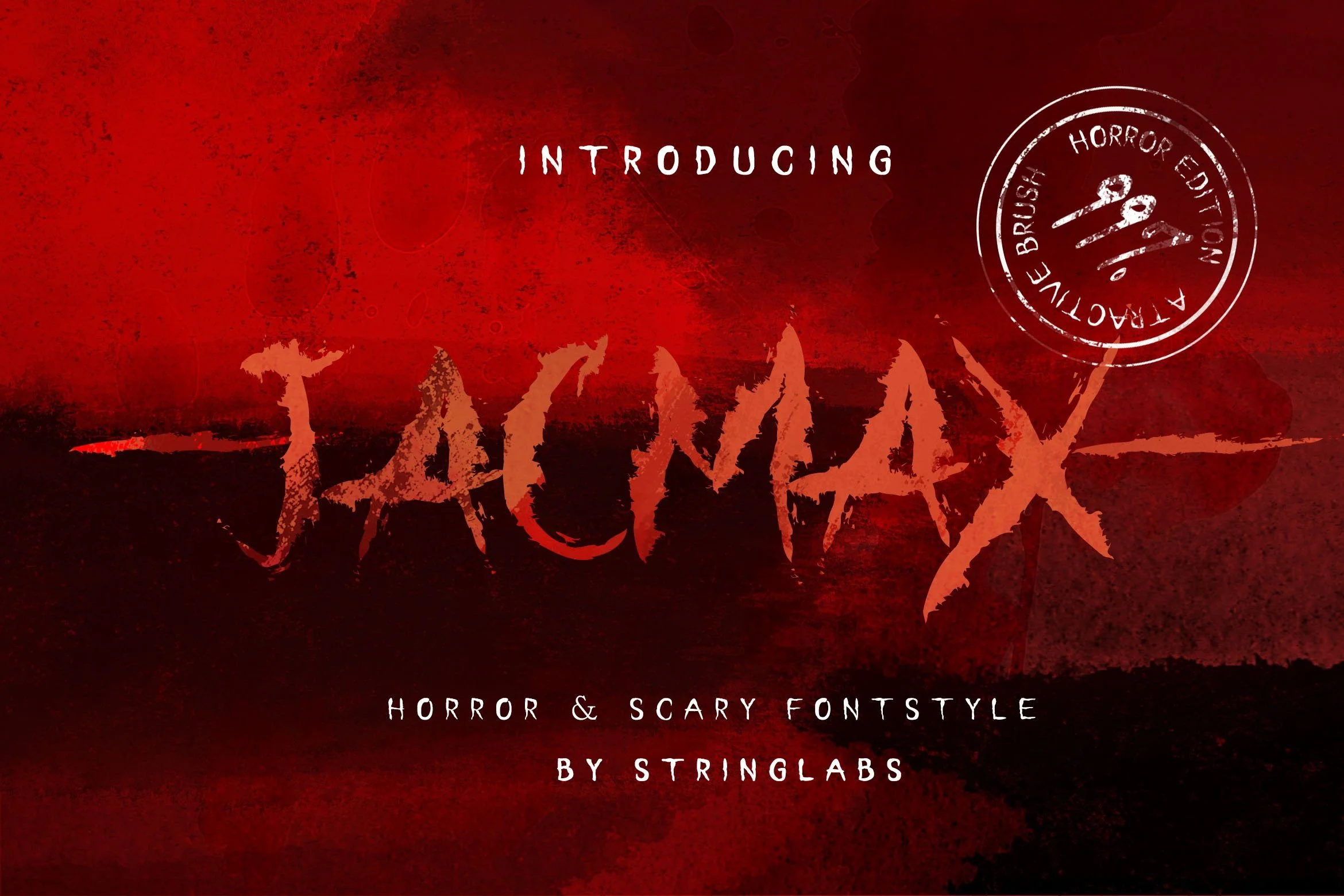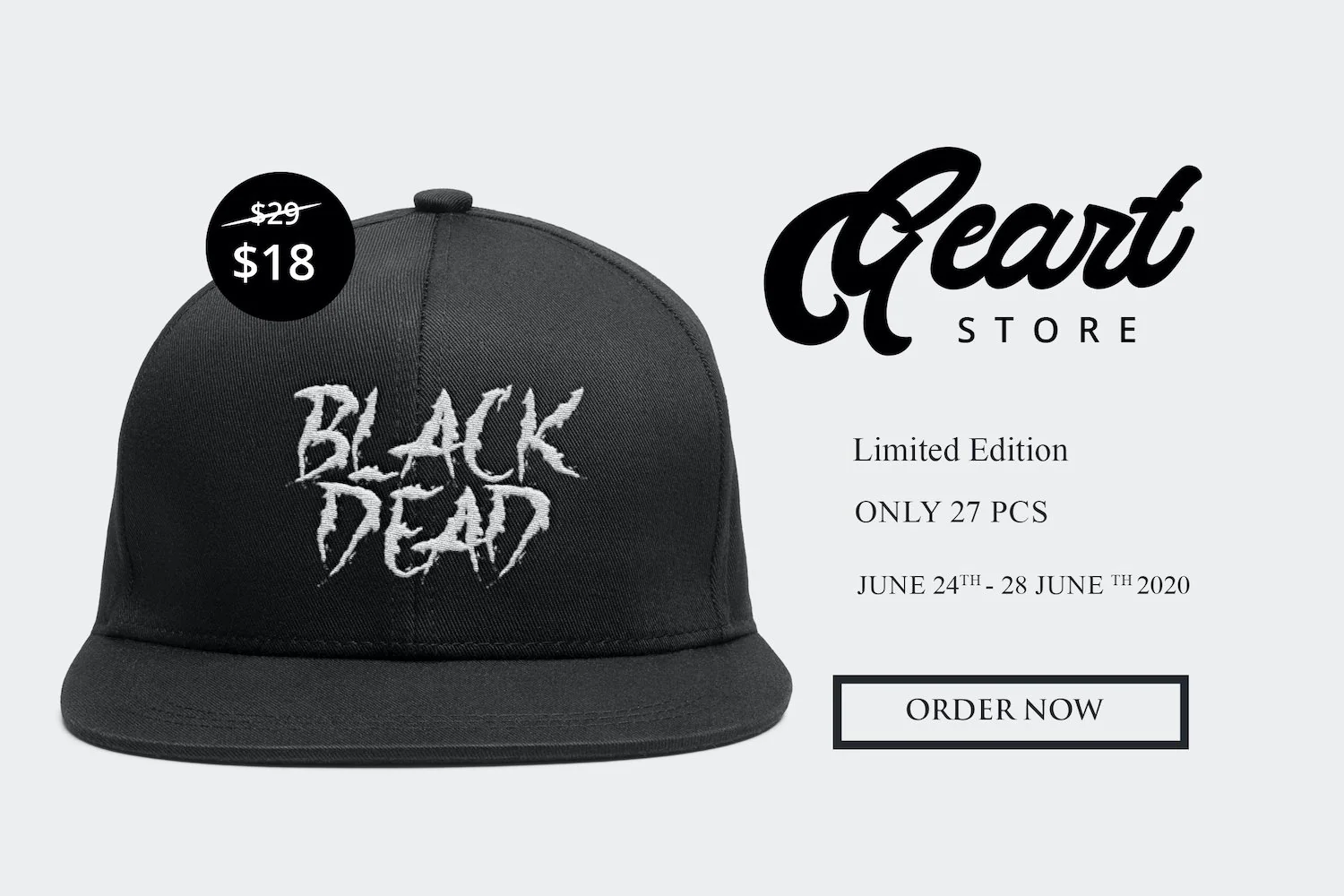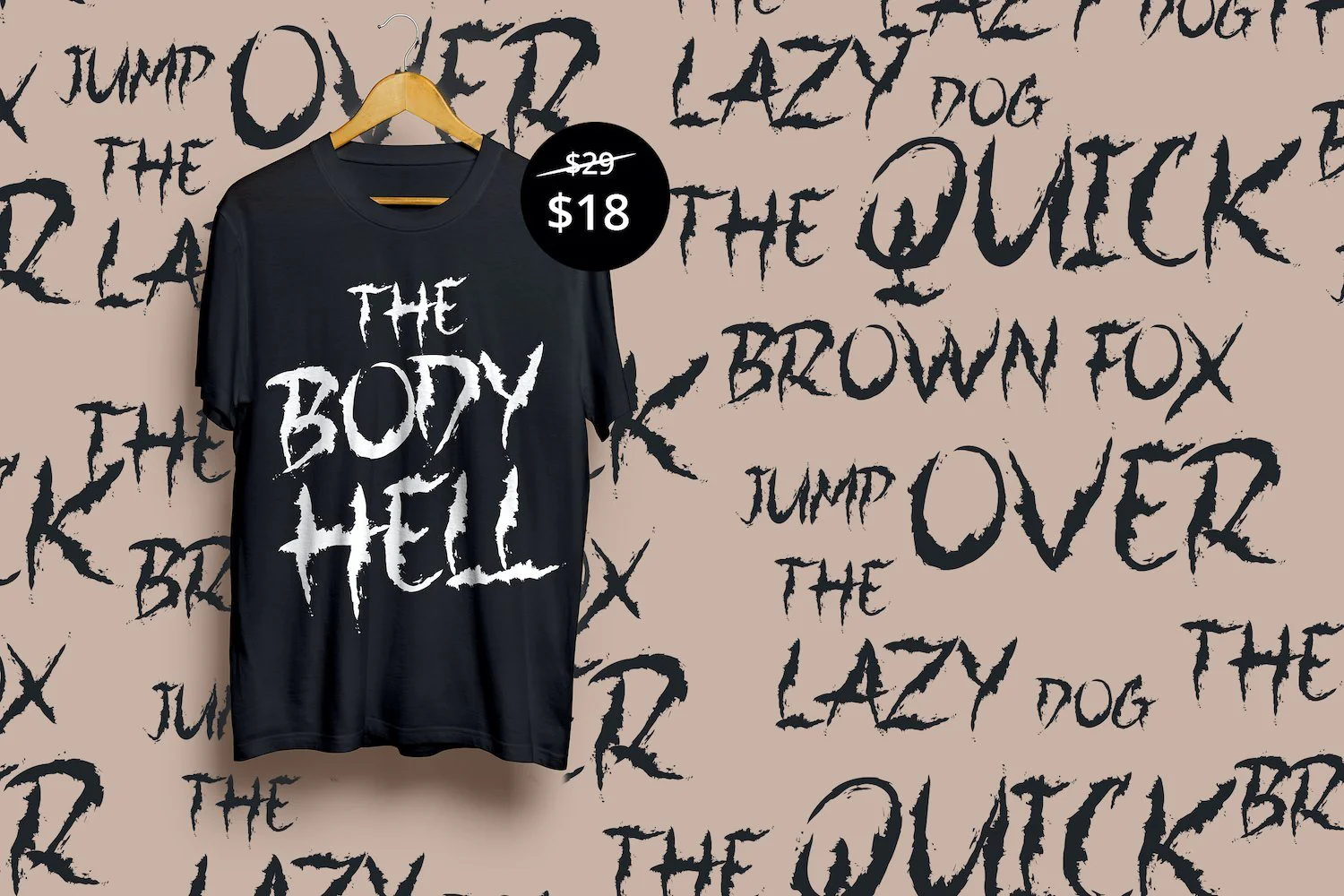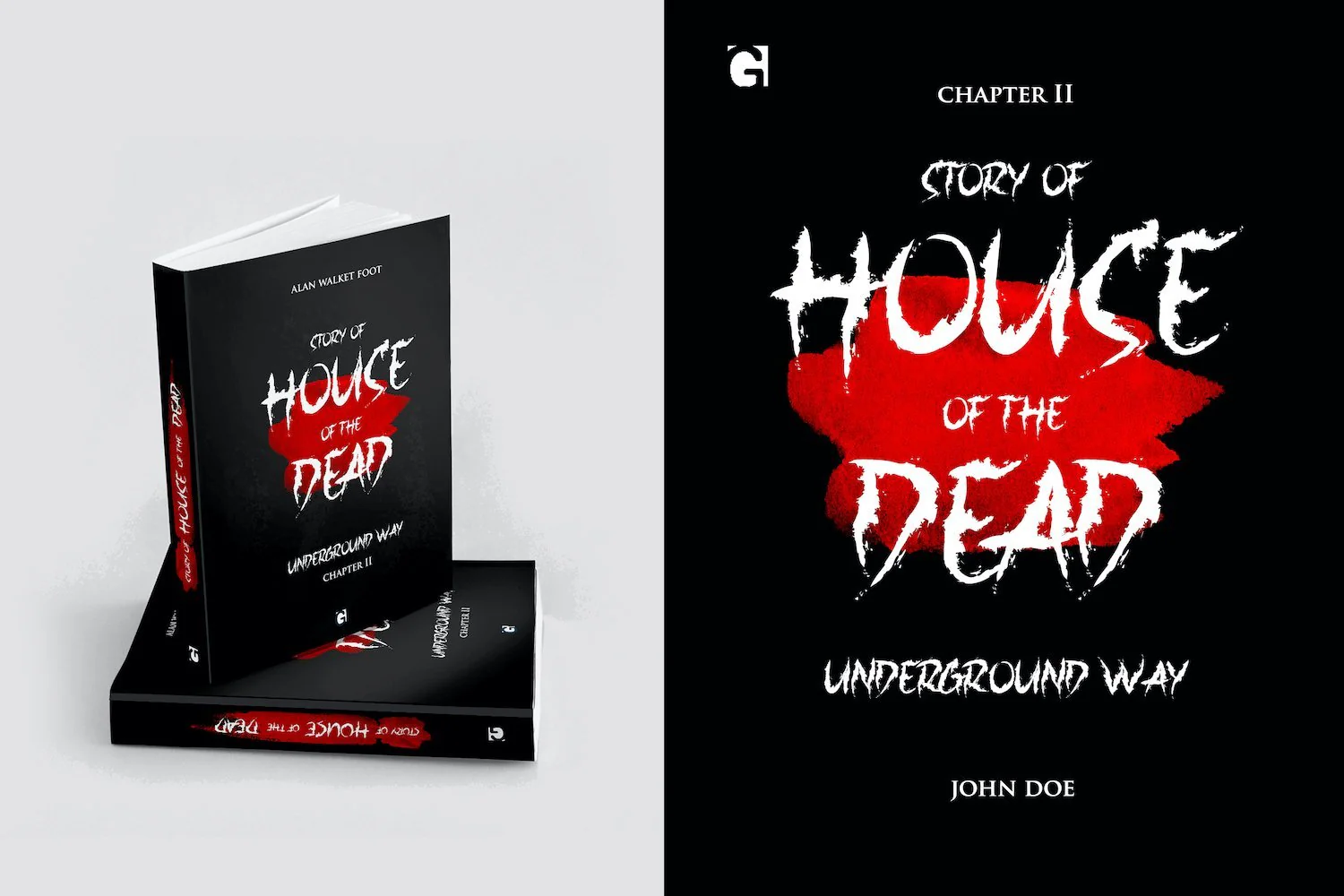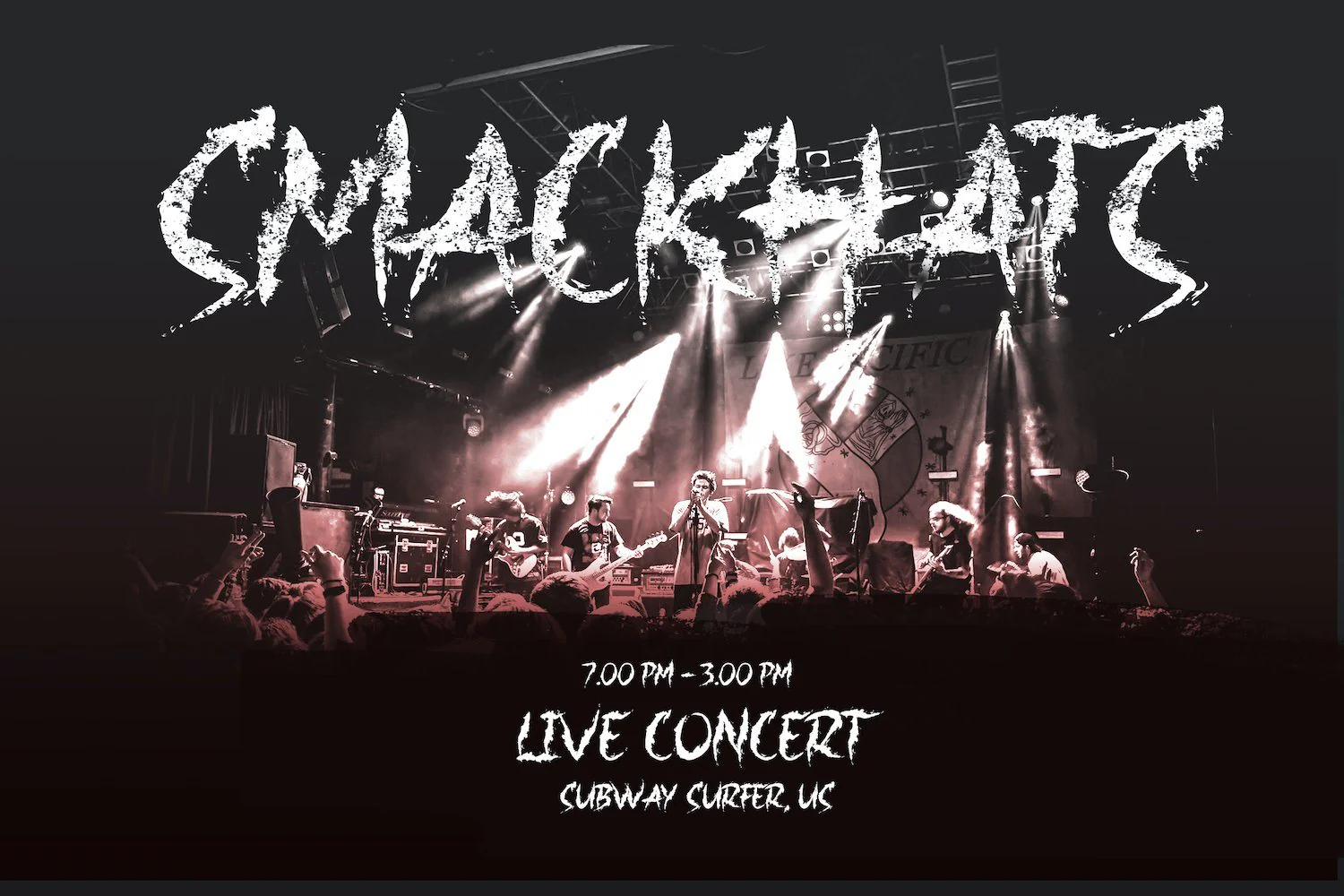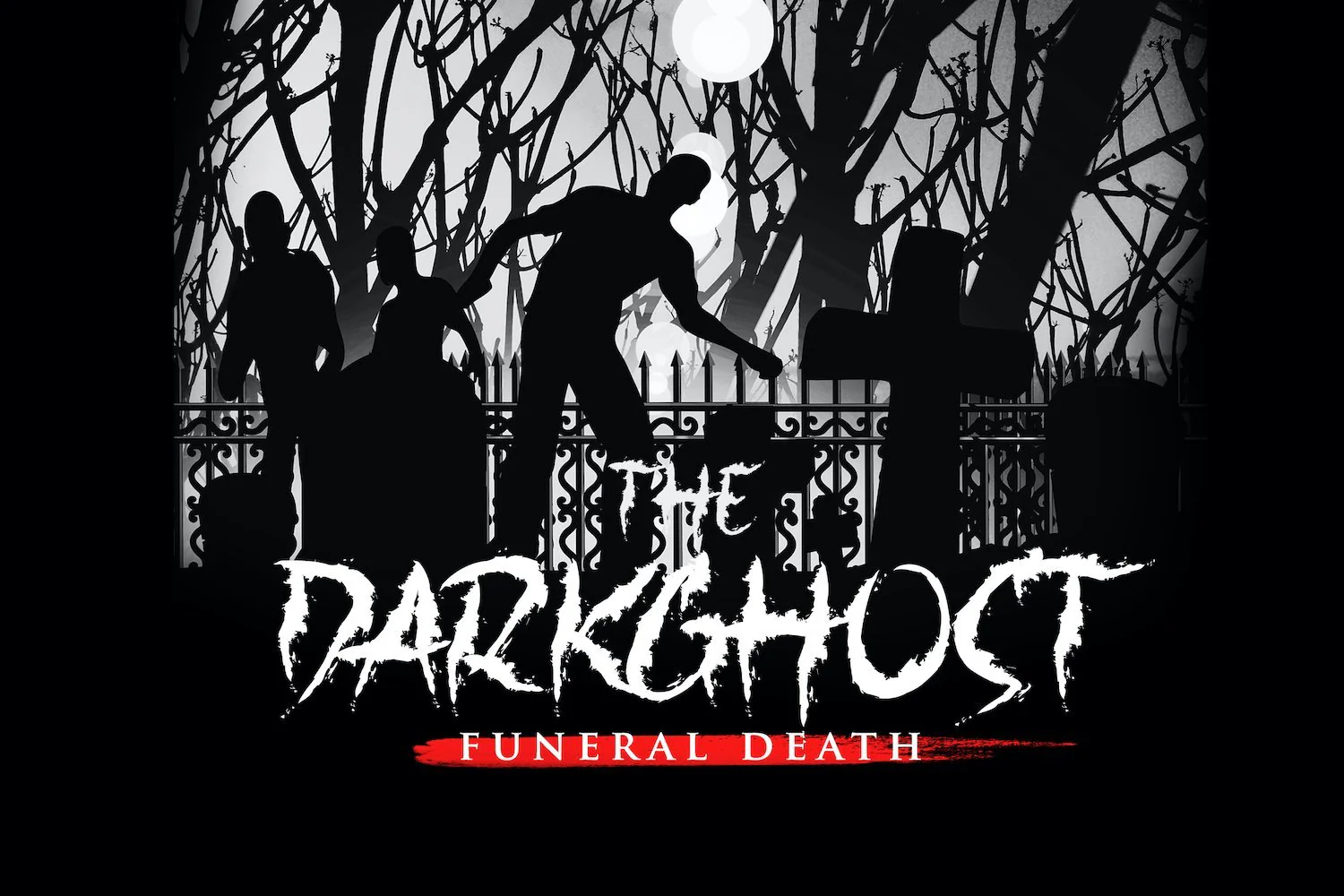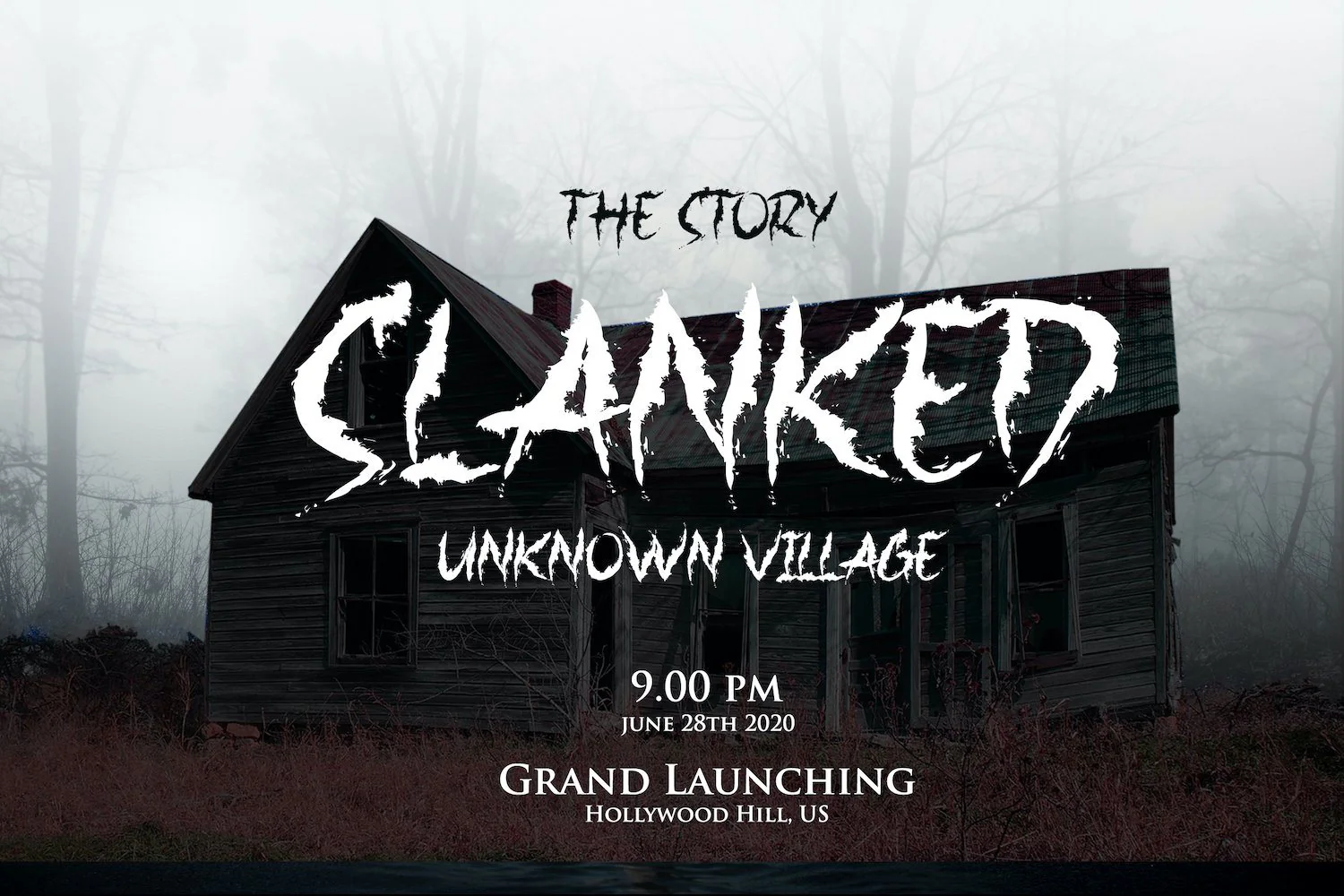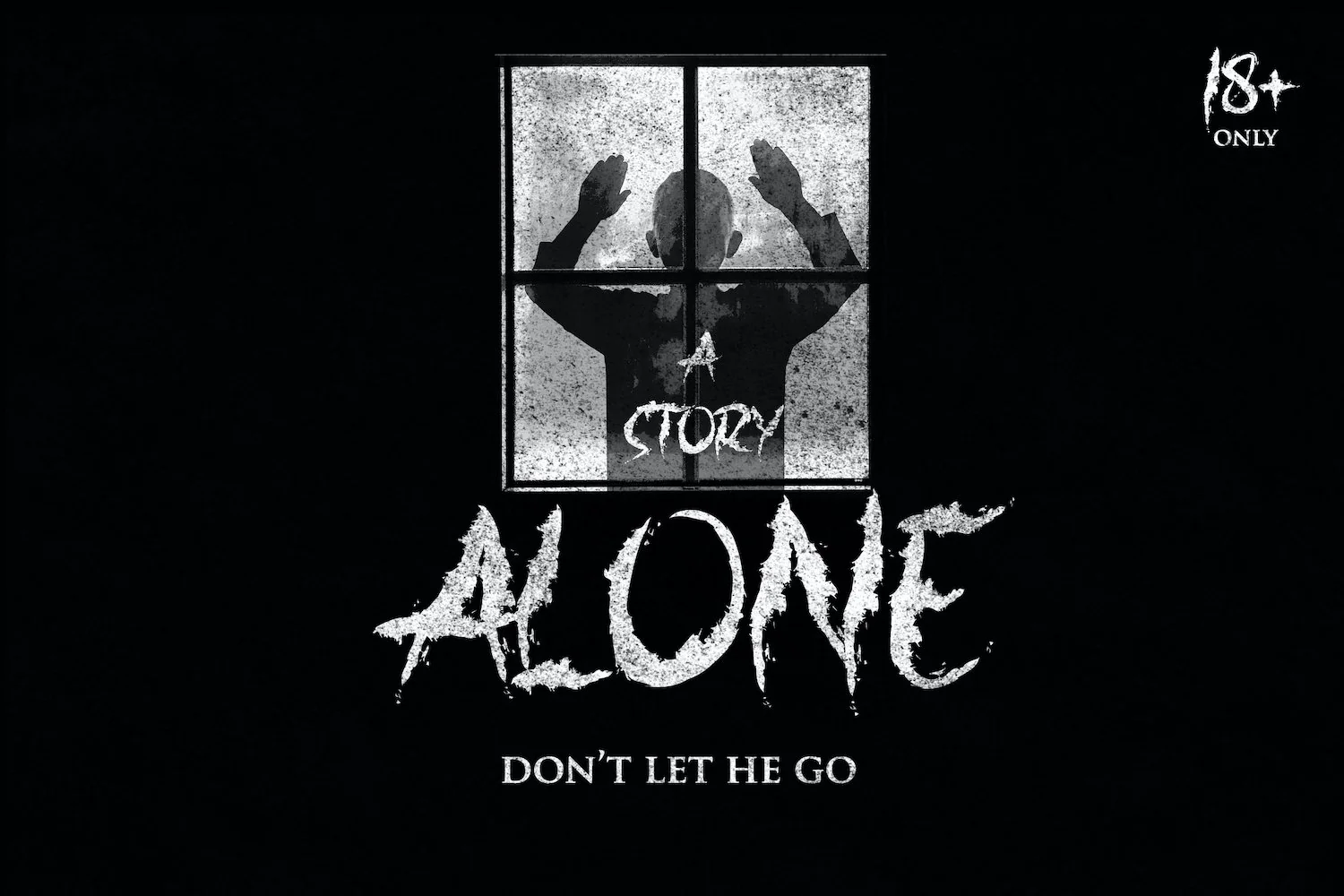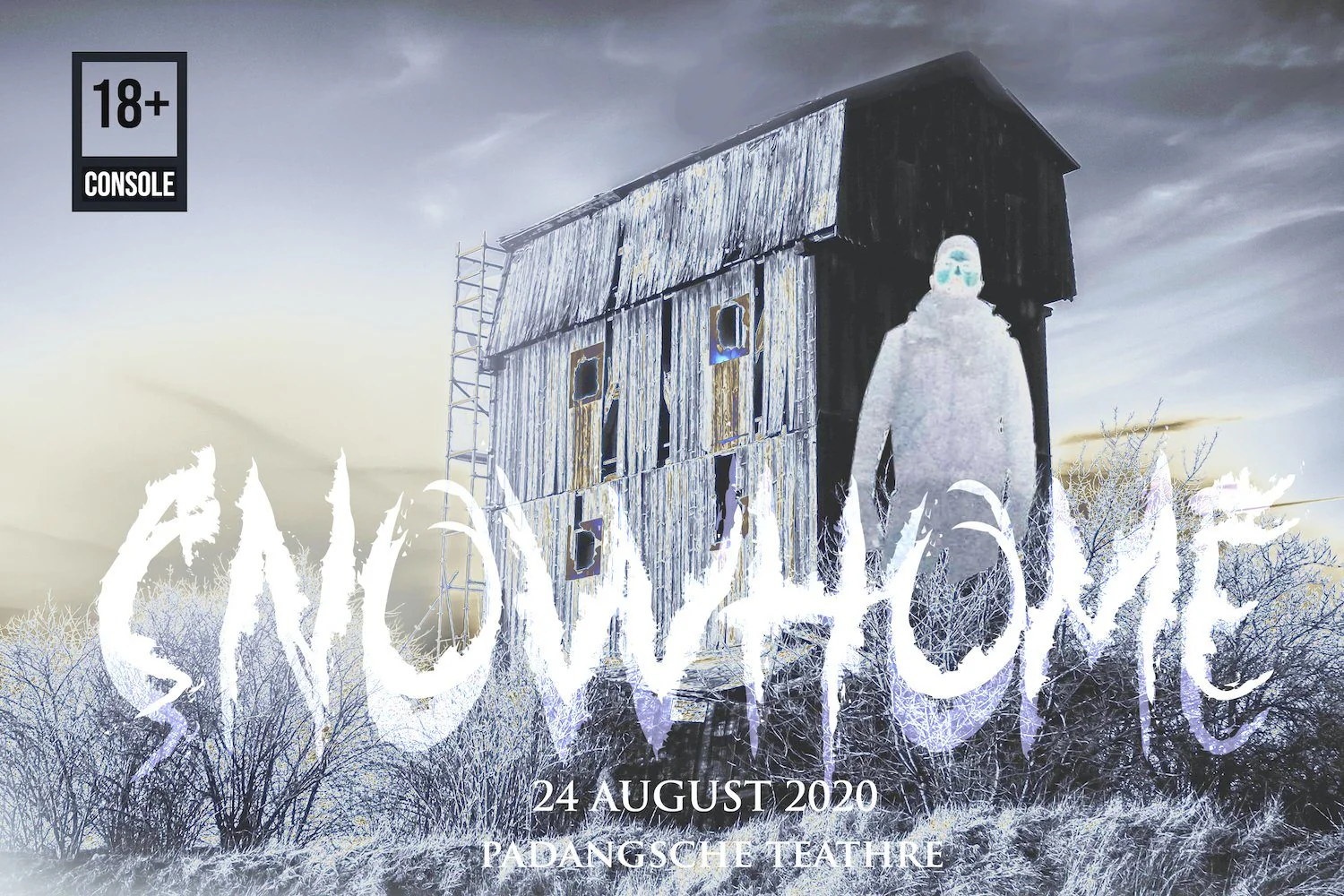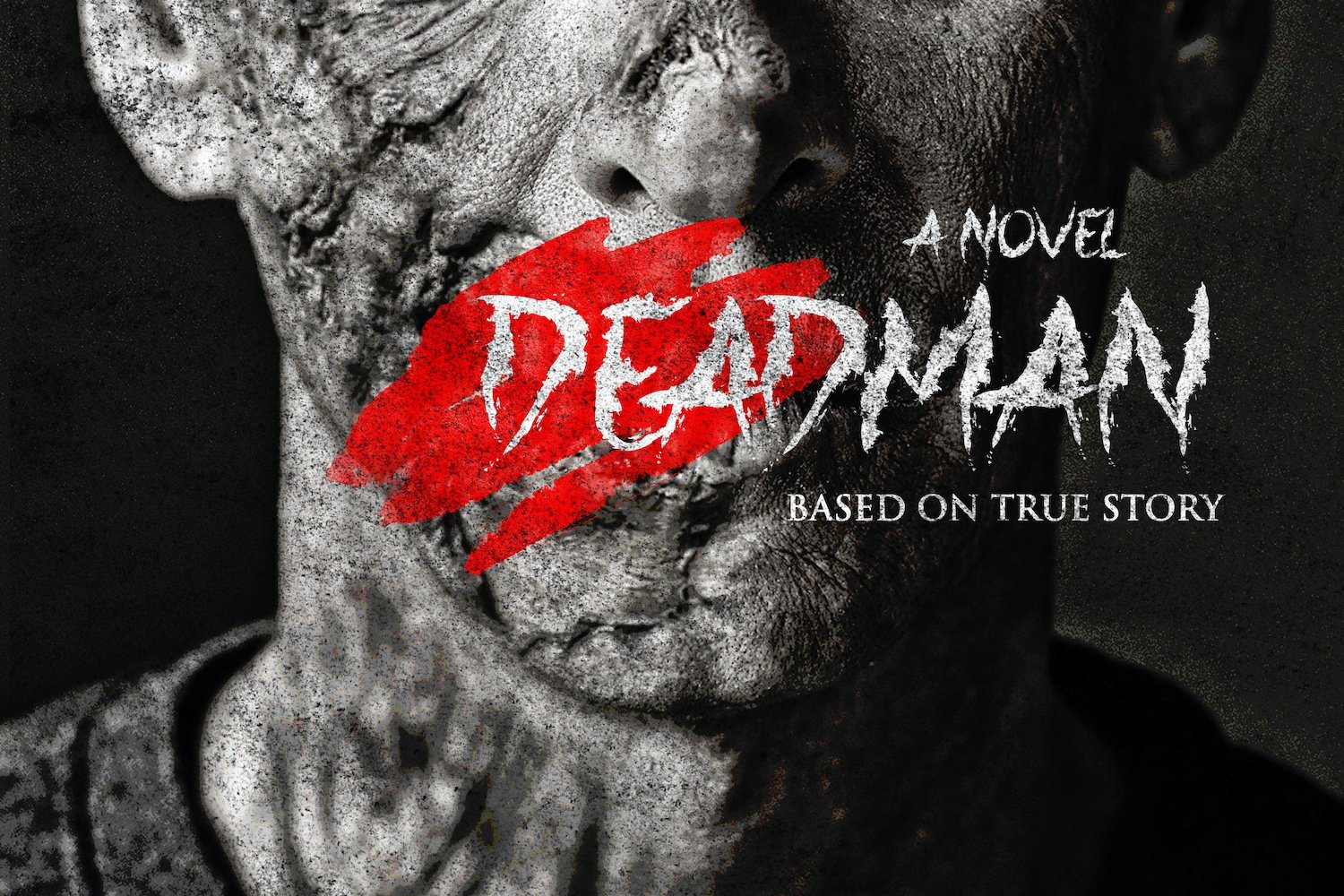
Jacmax - Horror Font
Introducing Jacmax - Horror Font
Jacmax is display font with horror and scary style. Jacmax has unique design taste that we combine with decorative horror style. The Jacmax is perfect for your horror projects, such as: Movie Poster, Lettering on Cover Books, Album music cover, Logo Brand, and much more.
Introducing Jacmax - Horror Font
Jacmax is display font with horror and scary style. Jacmax has unique design taste that we combine with decorative horror style. The Jacmax is perfect for your horror projects, such as: Movie Poster, Lettering on Cover Books, Album music cover, Logo Brand, and much more.